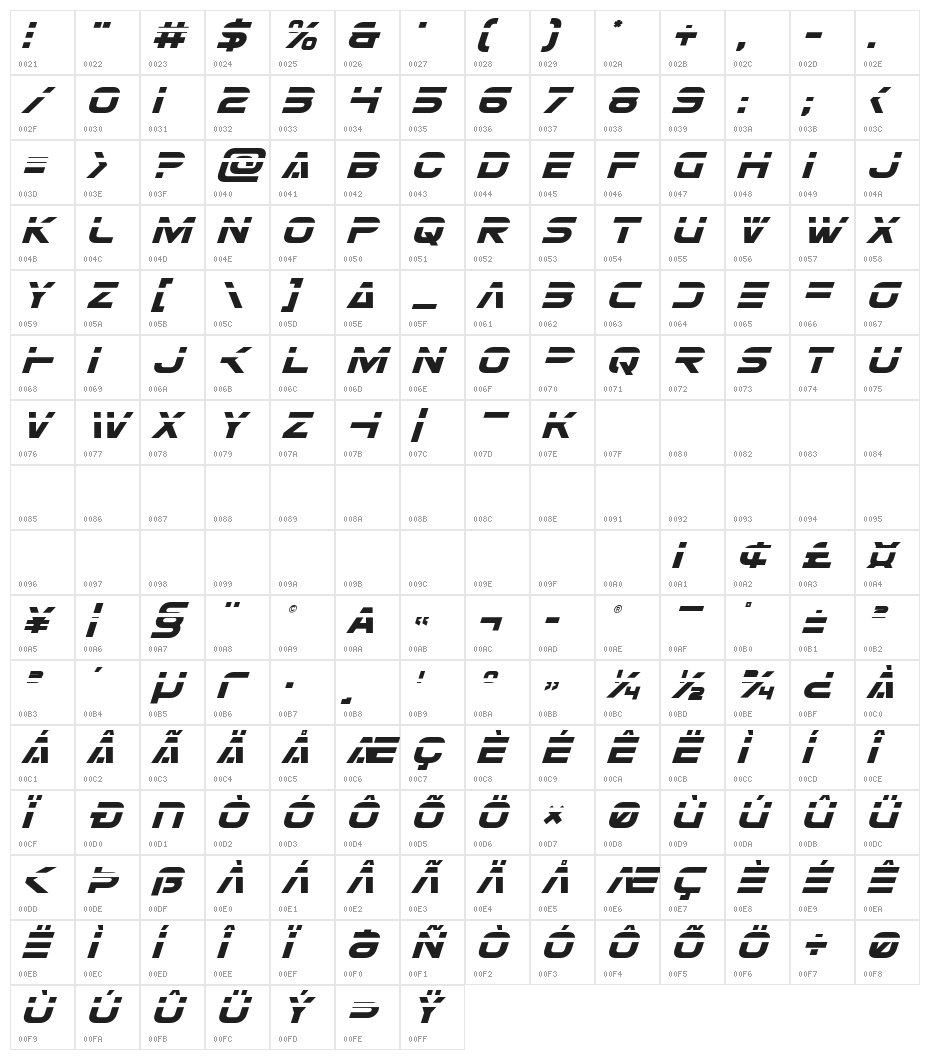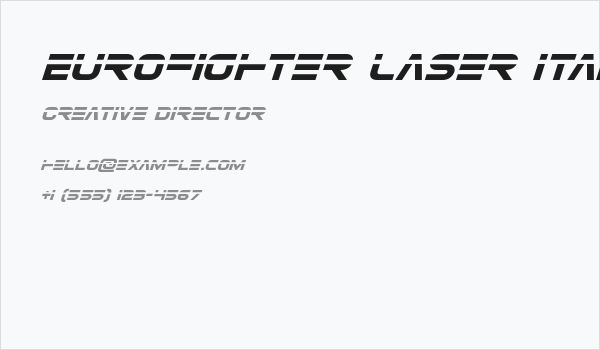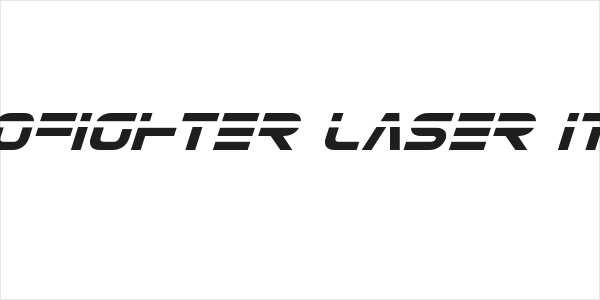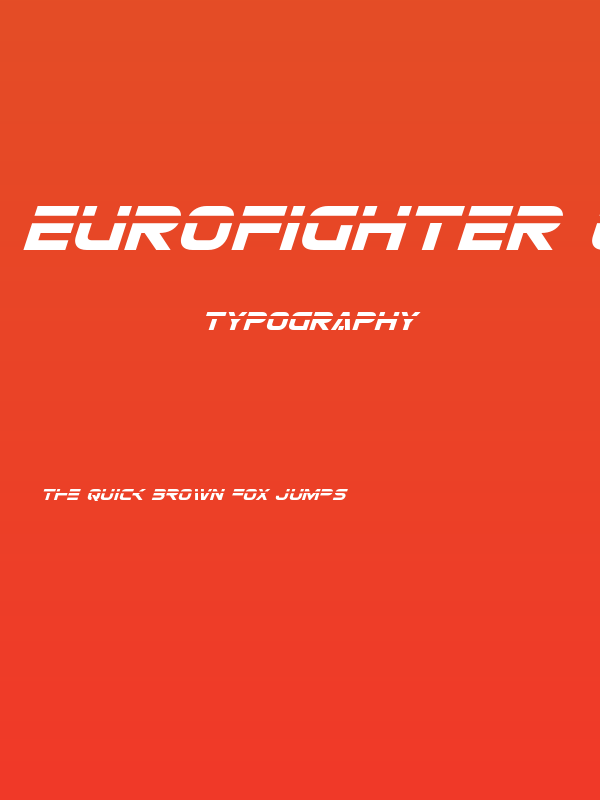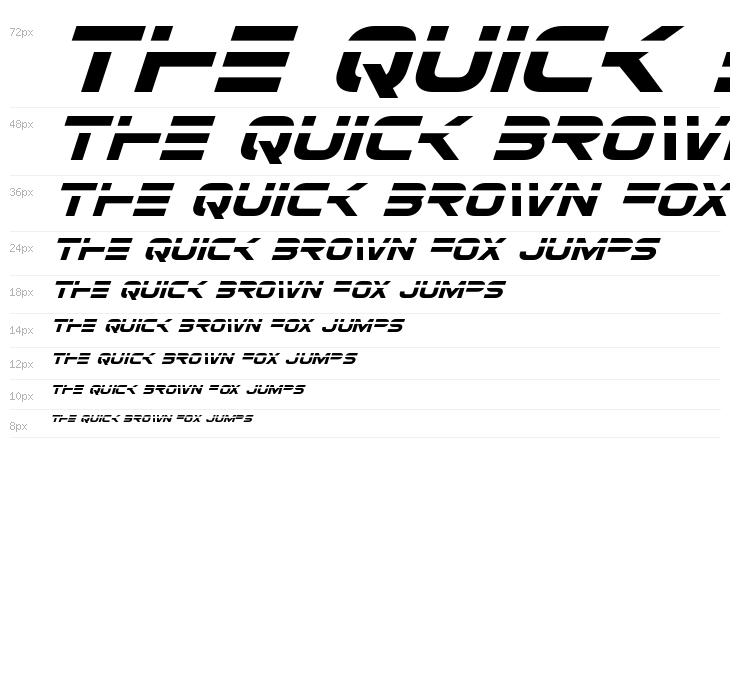
Eurofighter Laser Italic Font
Eurofighter Laser Italic Description
This font features a futuristic and dynamic design, characterized by its italicized and angular letterforms. The strokes are bold and consistent, giving it a strong presence. The characters are slightly condensed, enhancing the sleek and modern aesthetic. The font includes uppercase and lowercase letters, numbers, and a variety of special characters, all maintaining the same stylistic approach. The slanted orientation adds a sense of motion and speed, making it ideal for projects that require a modern and energetic feel.
| Proposed Projects | Ideal for technology branding, sci-fi movie posters, video game titles, and automotive advertising. |